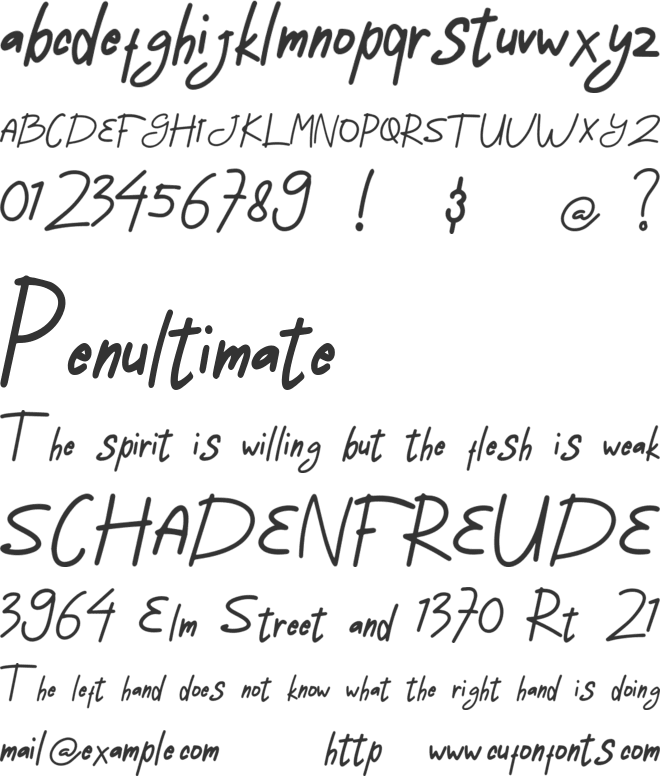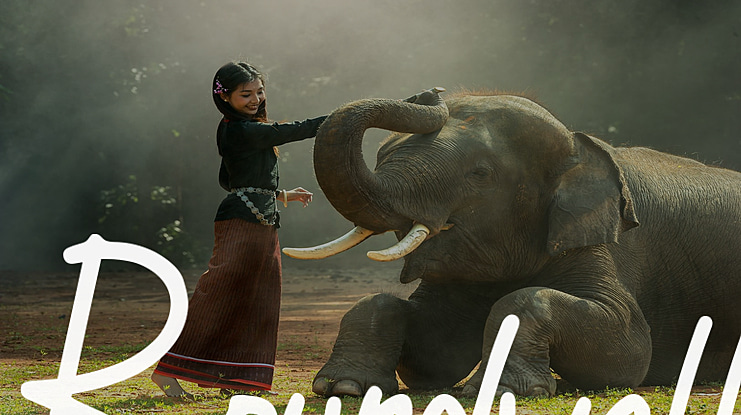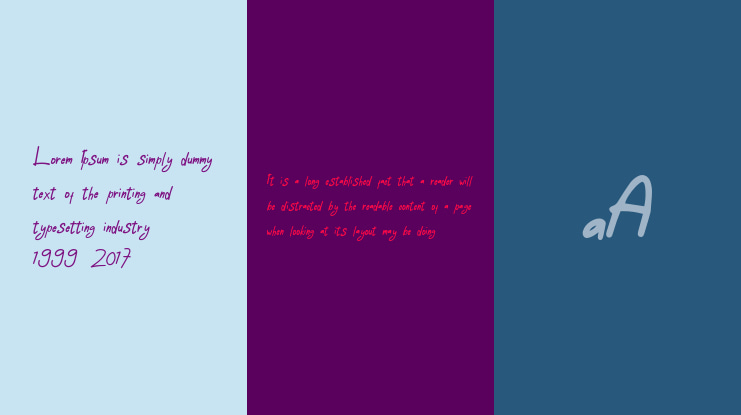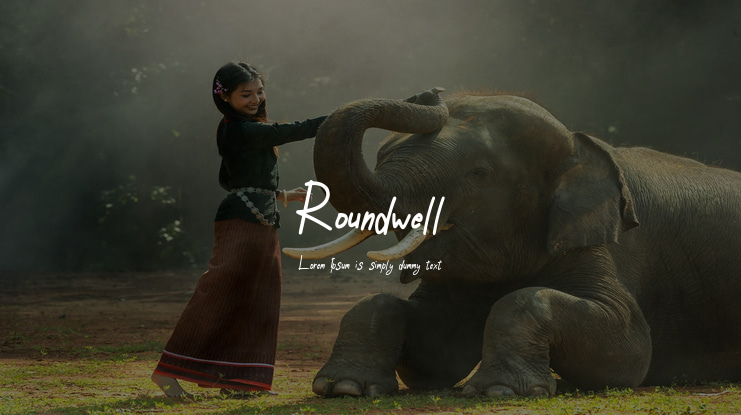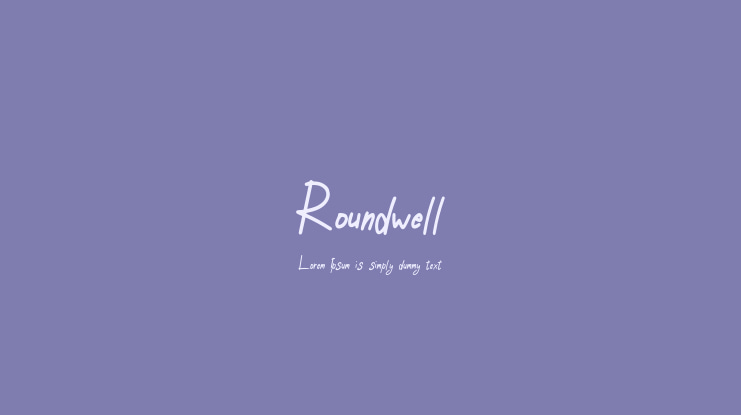
Roundwell Font
Roundwell is A Monoline Handwritten Font
Roundwell is perfect for branding project, apparel, labels, magazines, books, greeting / wedding cards, packaging, fashion, make up, stationery, and any type of advertising purpose or just used to express words above the background.